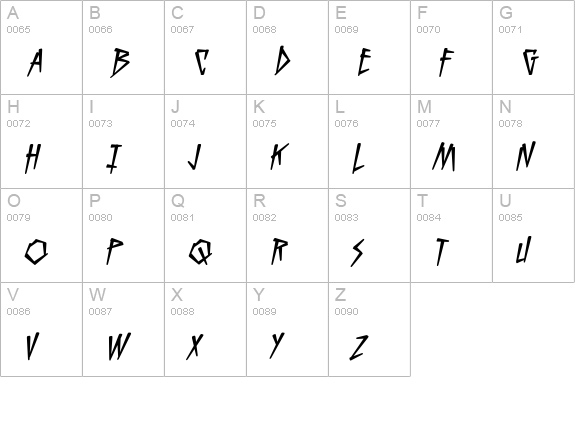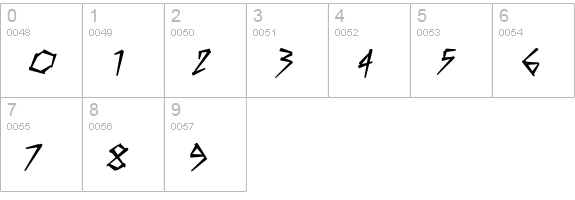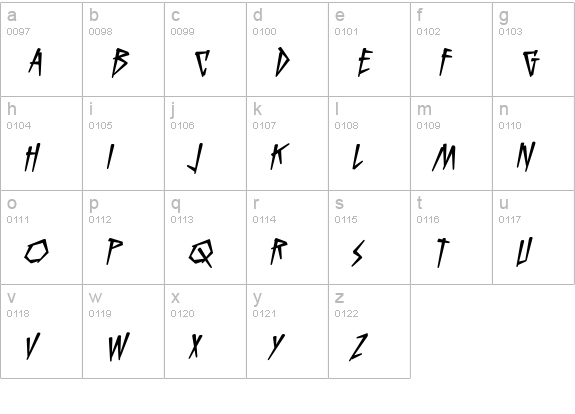
KillCrazy BB Italic Font Details
KillCrazy BB Italic is a distinctive, italic variant in the KillCrazy typeface family \xE2\x80\x94 well suited to design and typography projects.
KillCrazy BB Italic font is a bold and edgy typeface that exudes a sense of rebelliousness and creativity. Its slanted and sharp letterforms make a powerful statement, perfect for making your designs stand out from the crowd. The italic style adds a dynamic touch, adding a sense of movement and energy to your text. This font is versatile and can be used for a variety of projects, from posters and flyers to social media graphics and branding materials. Its unique design is sure to capture attention and leave a lasting impression on your audience. And the best part? KillCrazy BB Italic font is completely free to download at FontsMarket.com. Now you can enjoy the boldness and creativity of this font without any cost. Don't miss out on this opportunity to elevate your designs with a touch of rebellious flair. Download KillCrazy BB Italic font today and unleash your creativity!